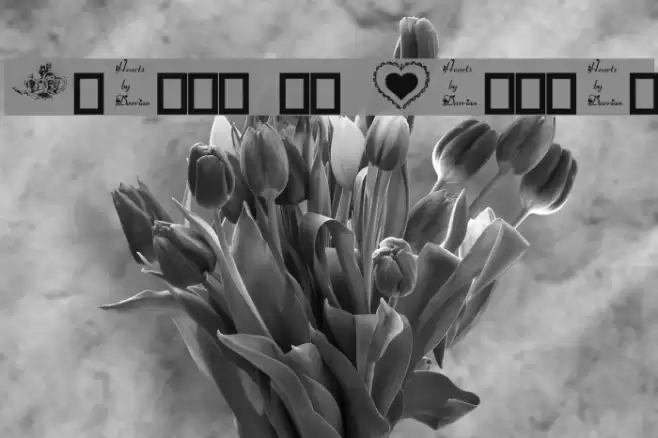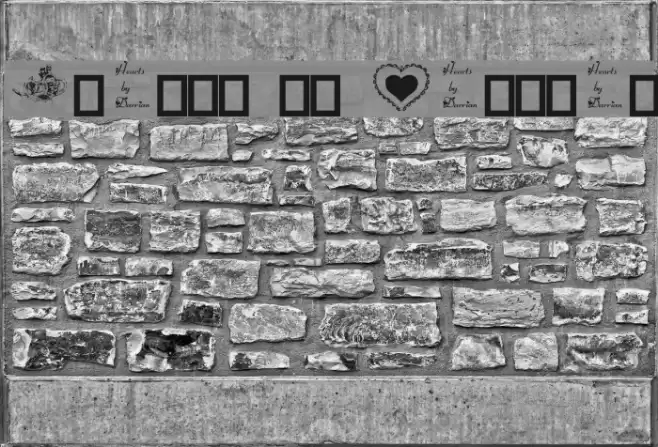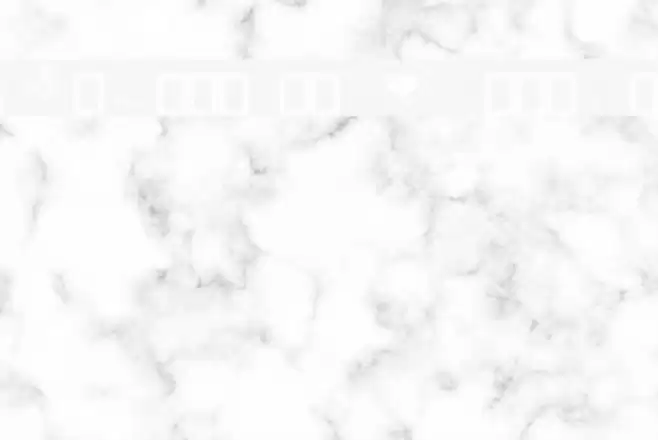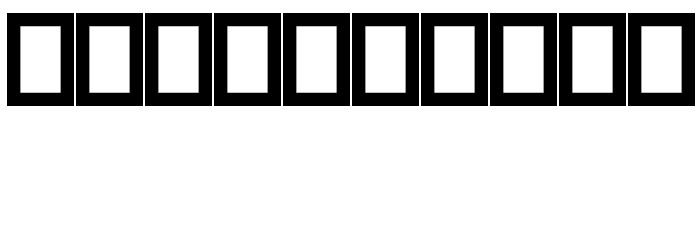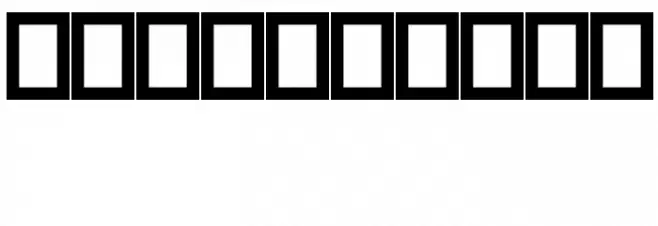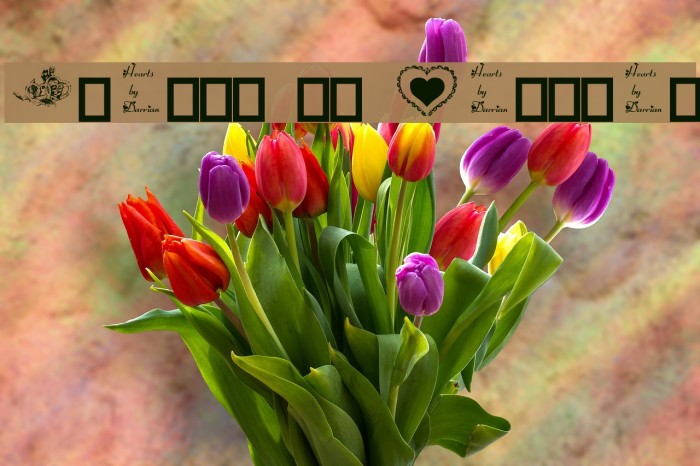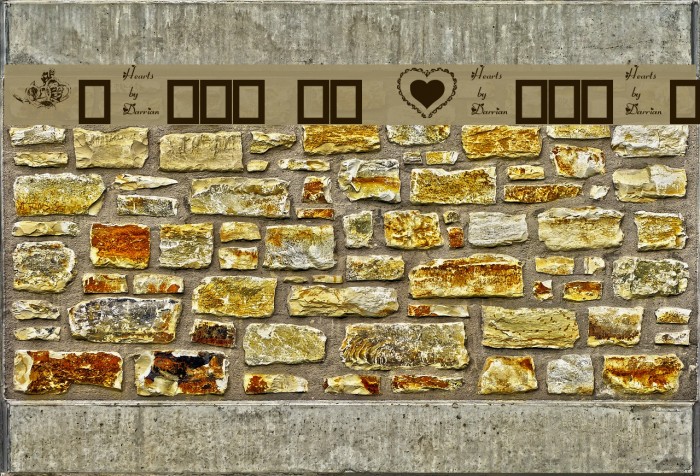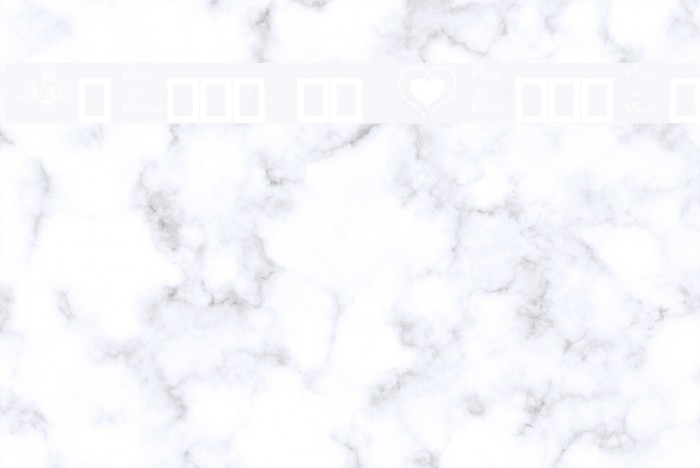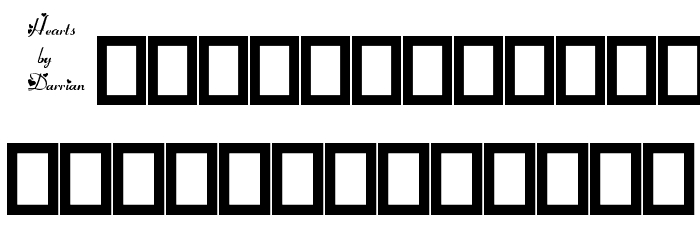
Hearts by Darrian Font
Hearts by Darrian Description
This collection features a variety of heart-themed decorative elements, each uniquely designed with intricate patterns and motifs. The hearts incorporate elements such as musical notes, floral designs, and abstract art, providing a whimsical and romantic feel. The designs are highly detailed, making them suitable for embellishing creative projects that require a touch of elegance and charm. The overall style is playful and artistic, with each heart offering a distinct visual appeal that can enhance invitations, greeting cards, and other decorative items.
A decorative collection of intricately designed heart motifs with artistic elements from Images & Symbols fonts.
- Proposed Projects: Ideal for use in wedding invitations, Valentine's Day cards, scrapbooking, and decorative art projects.
- Use Case: Logos, Decorative elements